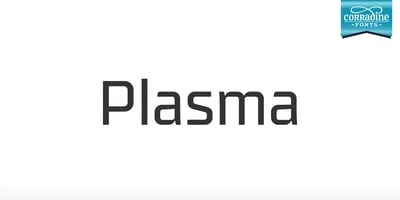
Plasma Font
Plasma Font is excellent for futuristic technology branding, high-energy gaming interfaces, sci-fi movie titles, electronic music promotions, cutting-edge medical equipment, energy sector marketing, plasma research communications, advanced manufacturing signage, cyberpunk aesthetics, and electrifying entertainment venues.
What makes Plasma Font exciting is its electrifying energy that perfectly captures the dynamic power and scientific innovation found in plasma physics and high-energy technology applications. This typeface features charged letterforms with electric proportions and energy-inspired details that evoke the intense luminosity and molecular excitement of plasma states and electromagnetic phenomena. The font's energetic personality and scientific authenticity make it ideal for technology brands seeking to convey power, innovation, and the electrifying potential that comes from advanced energy research and cutting-edge scientific breakthroughs.
Plasma Font family includes high-energy weight variations and electric alternatives that enhance its plasma appeal while providing design flexibility for technology and energy applications. The font features charged ligatures, energy-themed ornaments, and electric character variations that create authentic plasma atmosphere for technology and scientific branding.
Technology companies and energy research institutions consistently select Plasma Font for projects requiring authentic high-energy appeal and scientific credibility. The font's electrifying character excels in applications targeting tech enthusiasts, energy professionals, and science innovators who appreciate genuine technological advancement and energy innovation. Whether you're designing for plasma research facilities, energy technology companies, or high-tech gaming platforms, this dynamic typeface delivers the plasma authenticity and electric energy that resonates with audiences seeking genuine scientific innovation and the electrifying potential that defines advanced energy technology and plasma physics research.